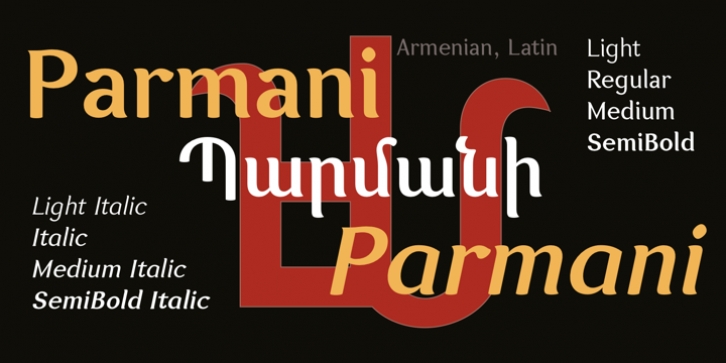
GHEA Parmani downloadDesigner: Edik Ghabuzyan
Publisher: Edik Ghabuzyan
This font was awarded the First price in ‘Granshan 2009’ International Type Design competition.
The font family includes: Armenian and Latin alphabet systems.
This font is recommended to be used in books, magazines, office documentations.